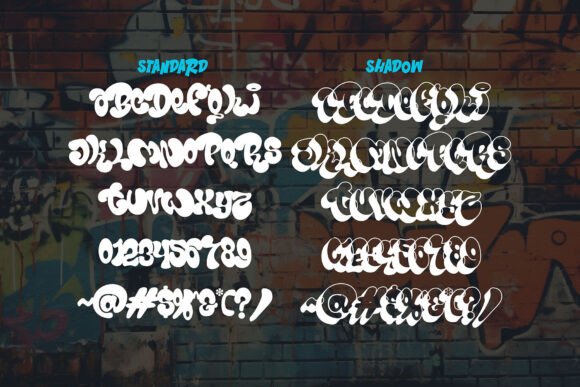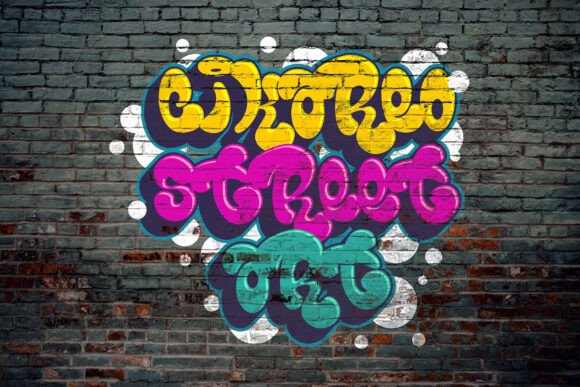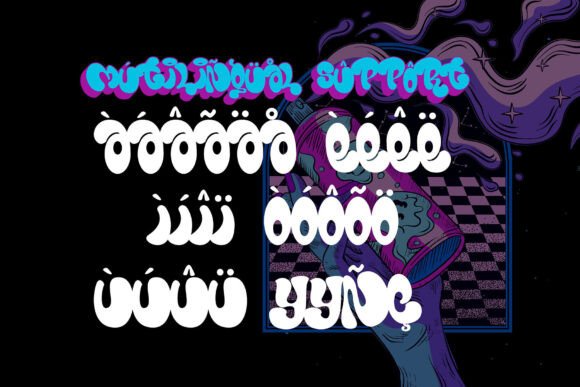
Bomber Marker Font
Presenting Bomber Marker, a graffiti font exuding an audacious allure and an idiosyncratic charm. With its assertive, hefty silhouette, it injects an edgy, street-style nuance into your creative endeavors. Intricately designed with a dual-layer framework – Solid and Shadow, Bomber Marker crafts an intriguing interplay of depth that elevates the prominence of your text, imbuing it with a spirited graffiti undertone. It offers an impactful expression for streetwear branding, urban artistry, hip-hop themed posters, album covers, rebel-streak stickers, graffiti murals, and more. With Bomber Marker, you infuse your design narrative with a playful, yet defiant vibrancy. Its robust, handcrafted strokes interspersed with whimsical nuances make it an indispensable tool for those yearning to encapsulate the true ethos of street art and graffiti culture.